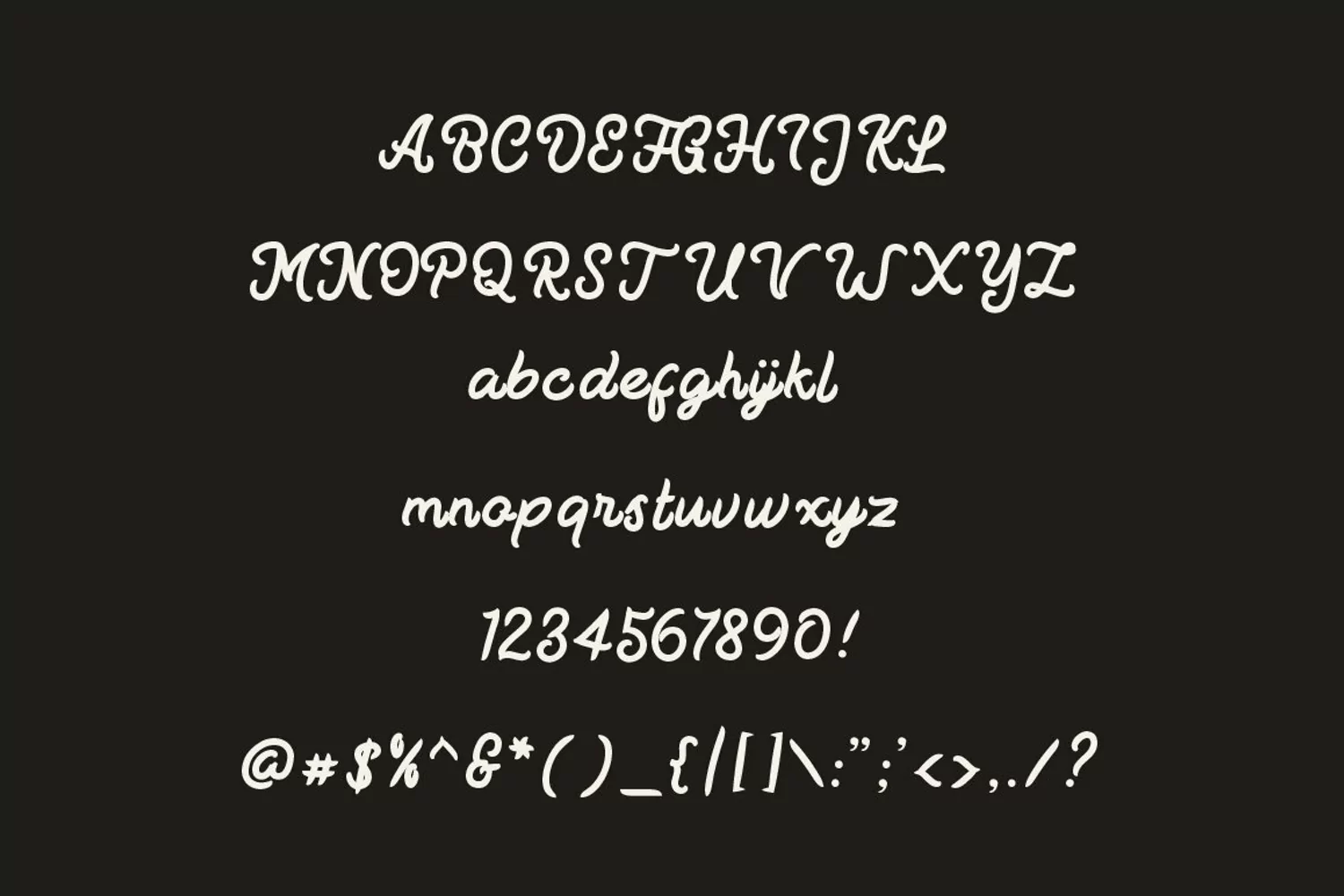
Ficked - Monoline Script
Ficked is a monoline script font. Suitable for any design needs, branding, modern advertising design, Art Quote, Book/Cover Title, special events, custom mug, pillow, t-shirts, any brush lettering needs and more.
• Ficked font - comes with upper and lowercase Standard Characters, Punctuation, Numerals. And other Glyphs variation of the OpenType features such as Stylistic Alternates, Stylistic Sets, and some Ligatures.